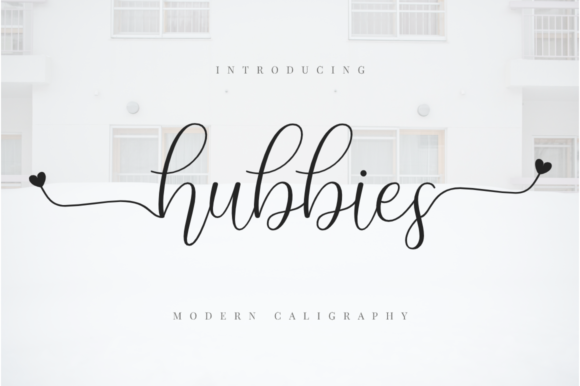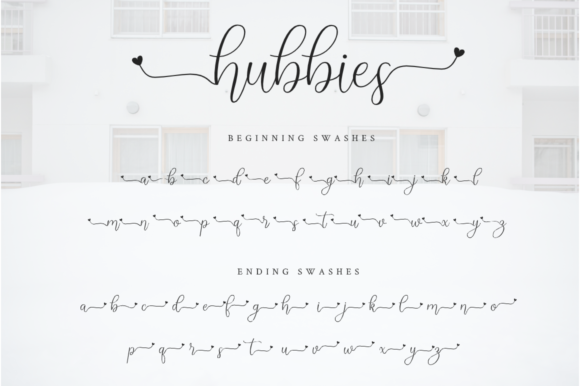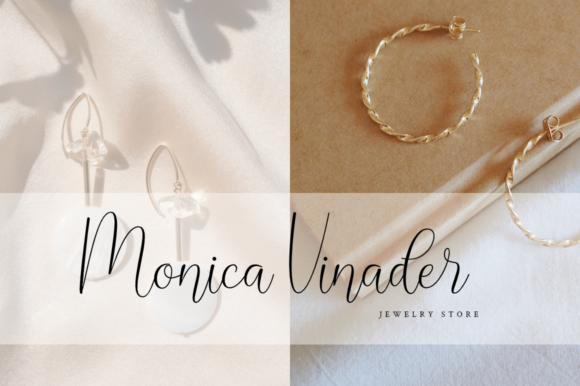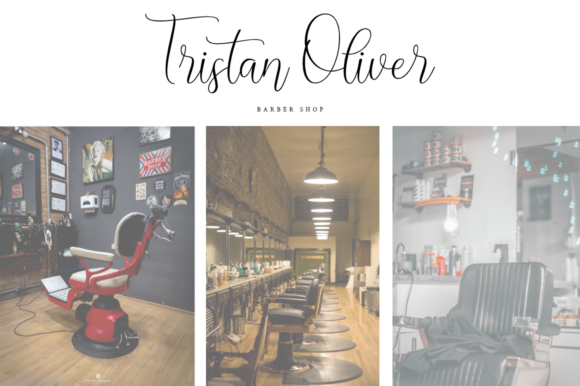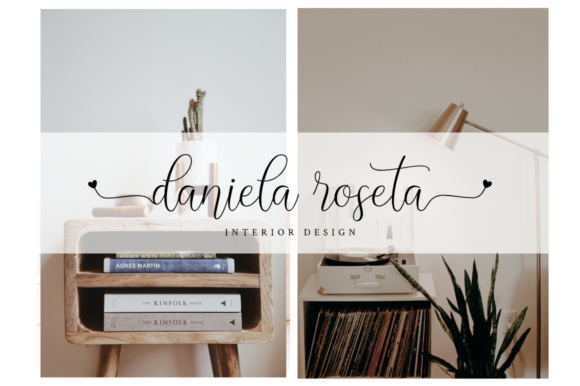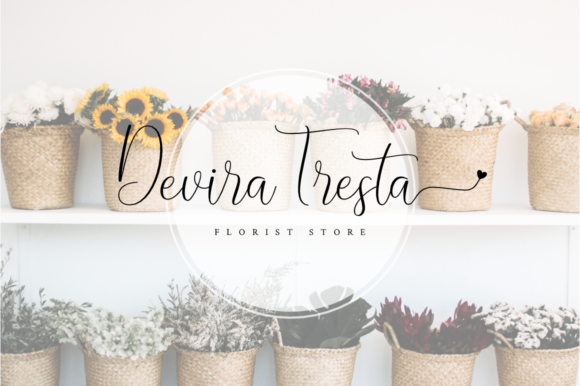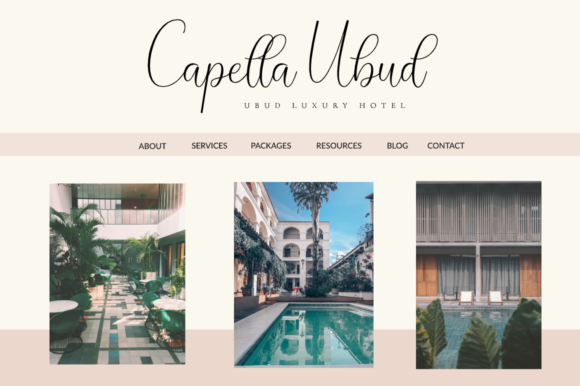
Hubbies is a delicate and distinct handwritten font. Incredibly relaxed and versatile, this font is the perfect fit for your most creative ideas. Add it to your favorite projects and make them come alive!